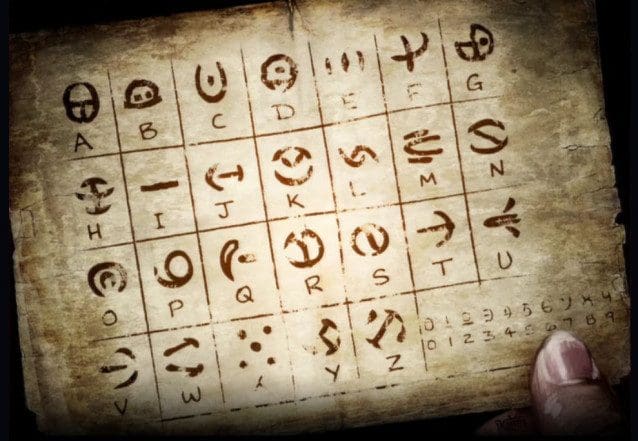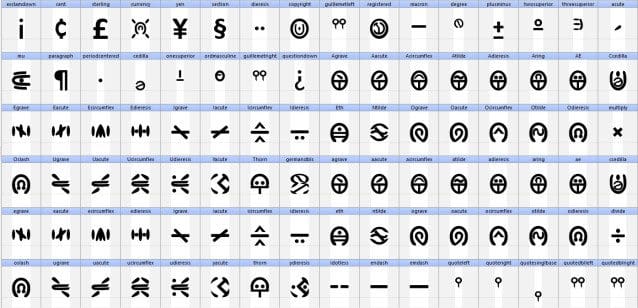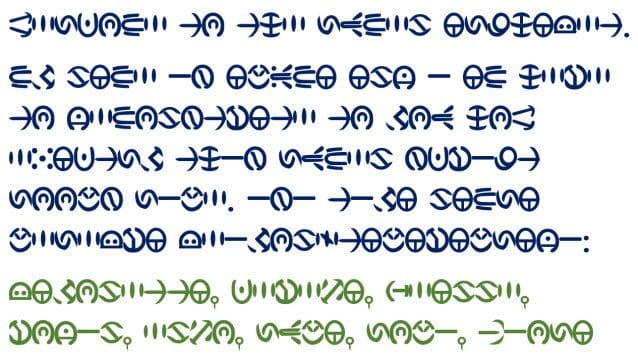
Angelic Alphabet (Bayonetta) Font
Angelic Alphabet (Bayonetta). This font is the script of the Lumen / Angelic Alphabet which is used by Laguna and the Lumen Sages in the Bayonetta games. It can be used for its original languages, Enochian and English, as well as various other languages such as Finnish, French, Swedish, German, Spanish, Cymraeg, Faroese, etc.
The original Latin letters and numerals were designed by Mari Shimazaki. I designed the letters with diacritical markers such as Å, and I also designed/drew a variety of commonly used symbols in Western Latin-based fonts.
E.g.: The letter ß is a combination of S and Z, the dotless ı consists of an interrupted i, and the symbol & is based on DZ which is the Enochian word for ‘and’.